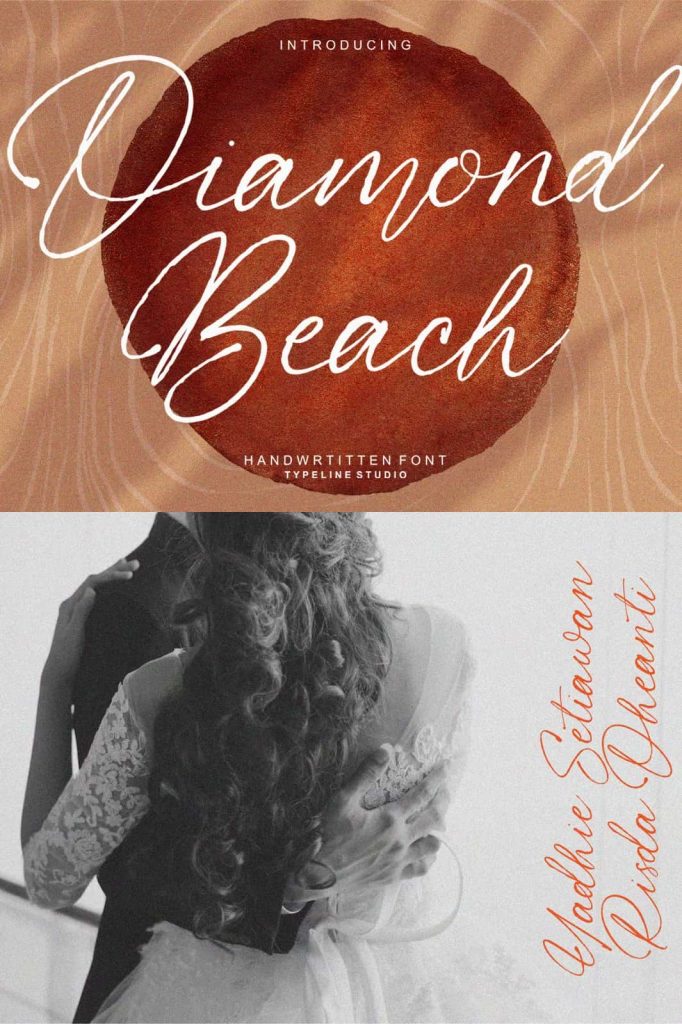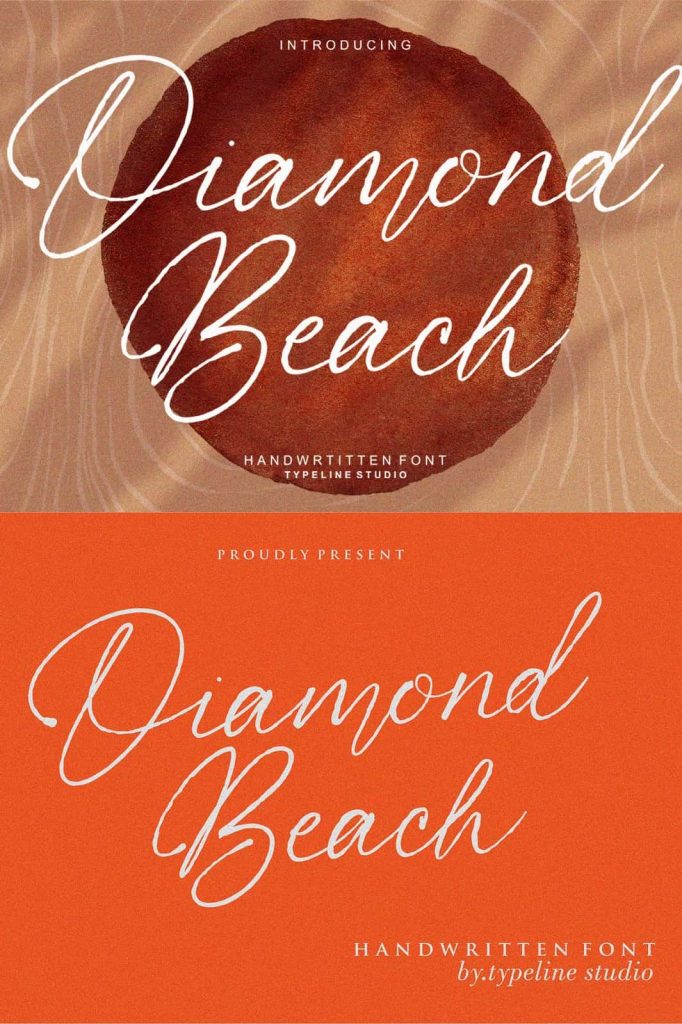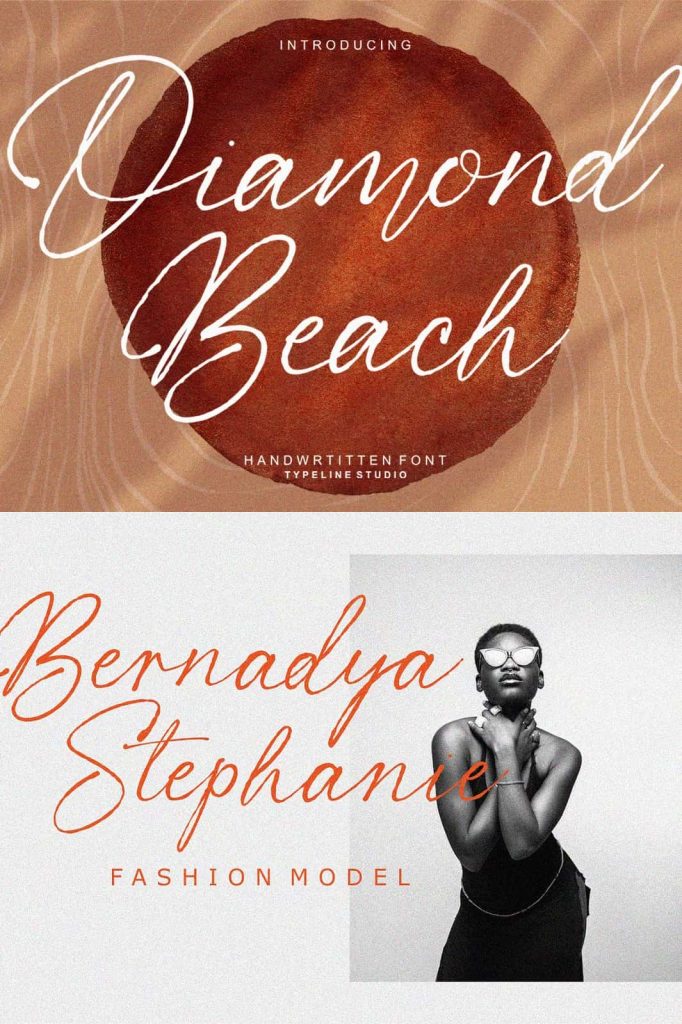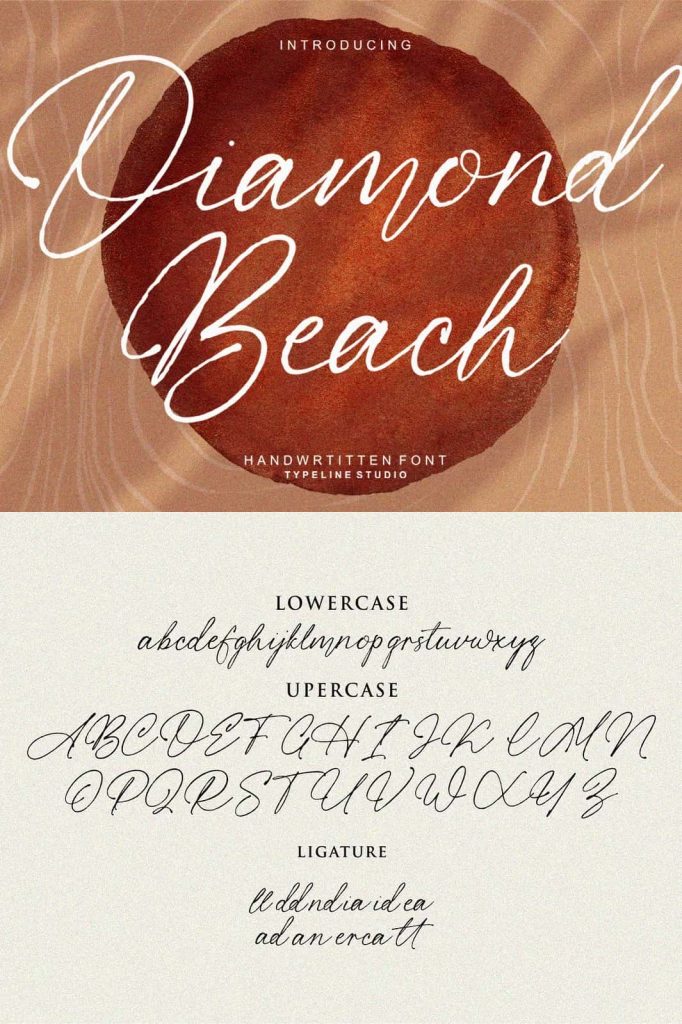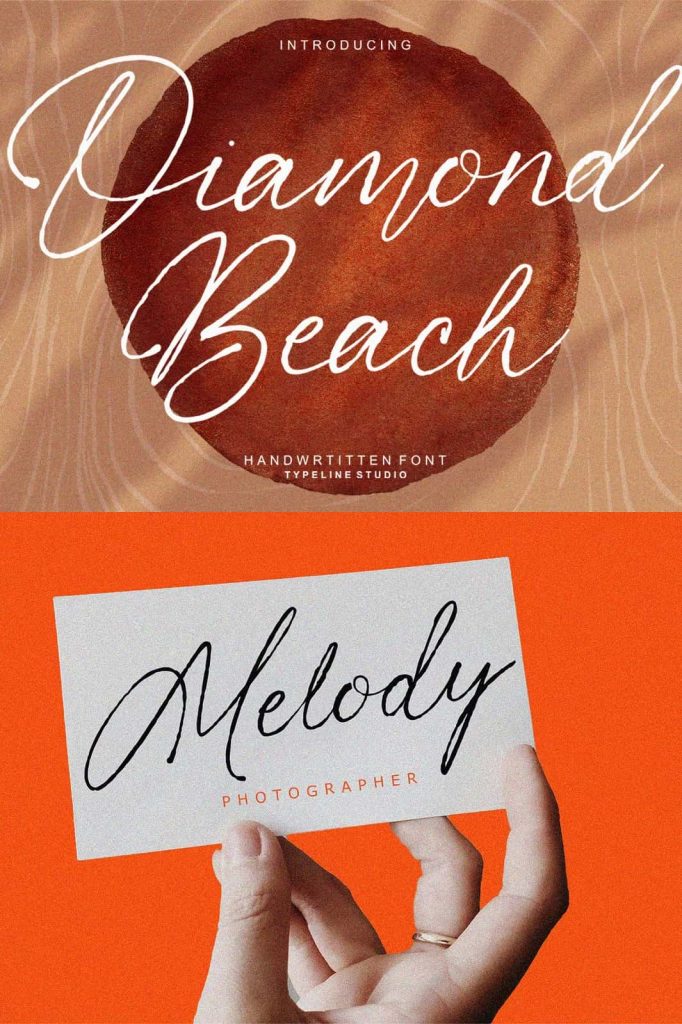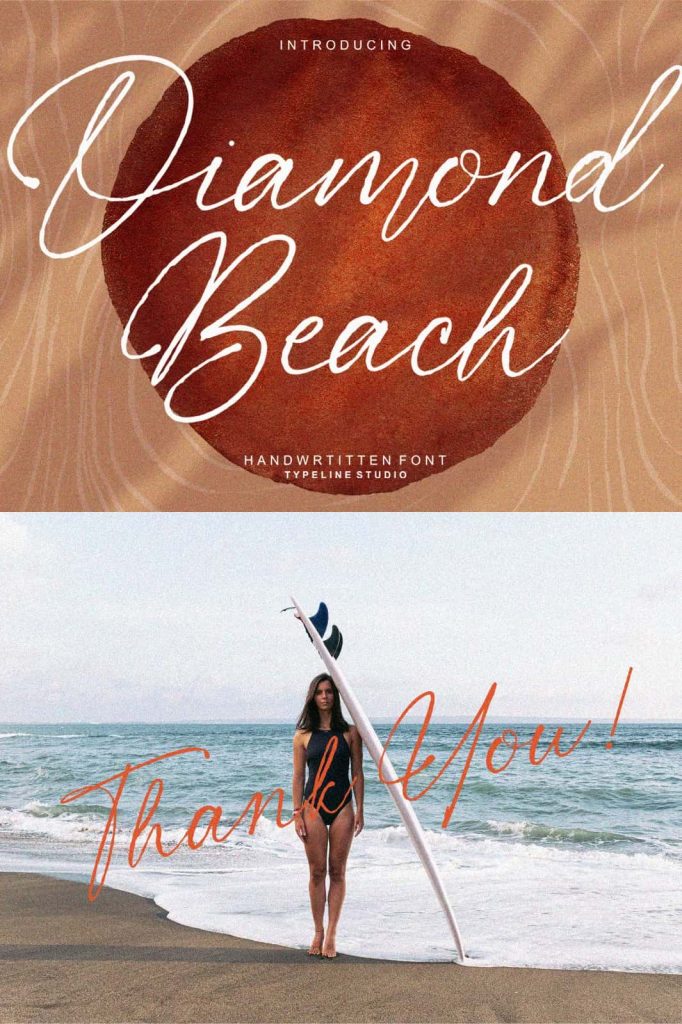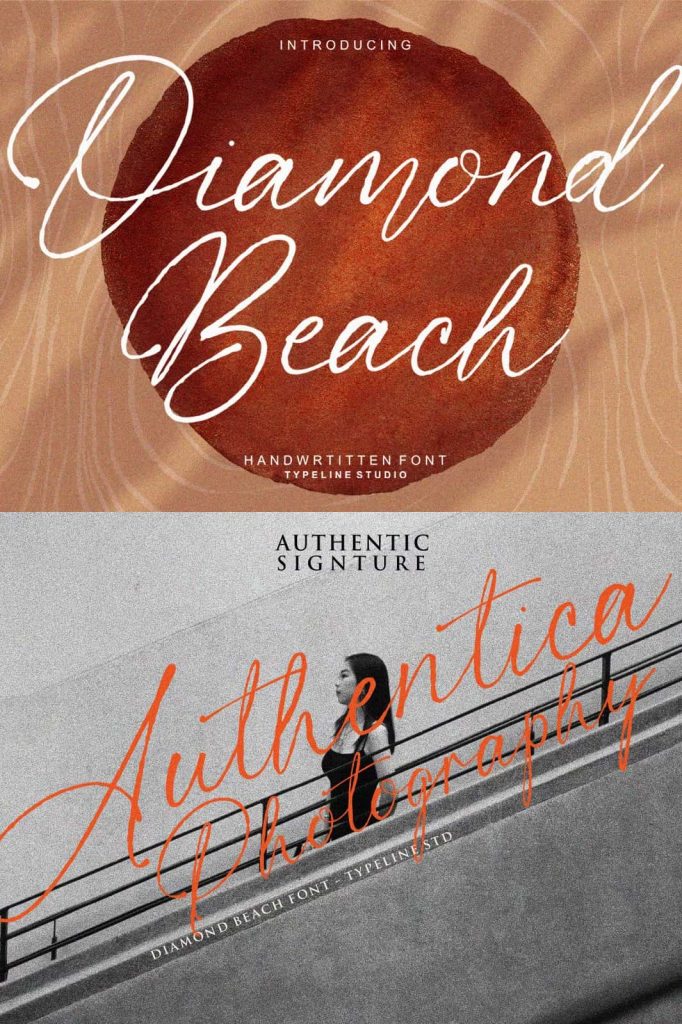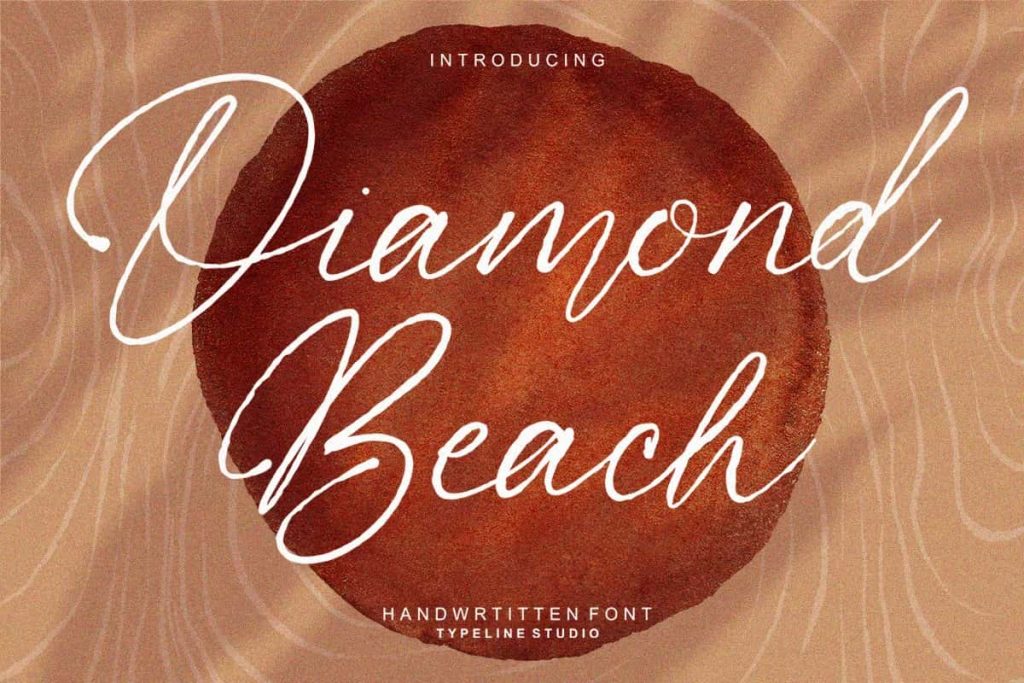
Diamond Beach is a whimsical and elegant handwritten font that captures the relaxed yet sophisticated charm of a beachside retreat. Inspired by the fluidity of handwritten script and the carefree spirit of coastal living, this font blends legibility with artistic flair. Each character features delicate, flowing strokes reminiscent of sea breezes and sandy shores, making it perfect for adding a personal touch to invitations, greeting cards, or any design that calls for a touch of refined spontaneity.